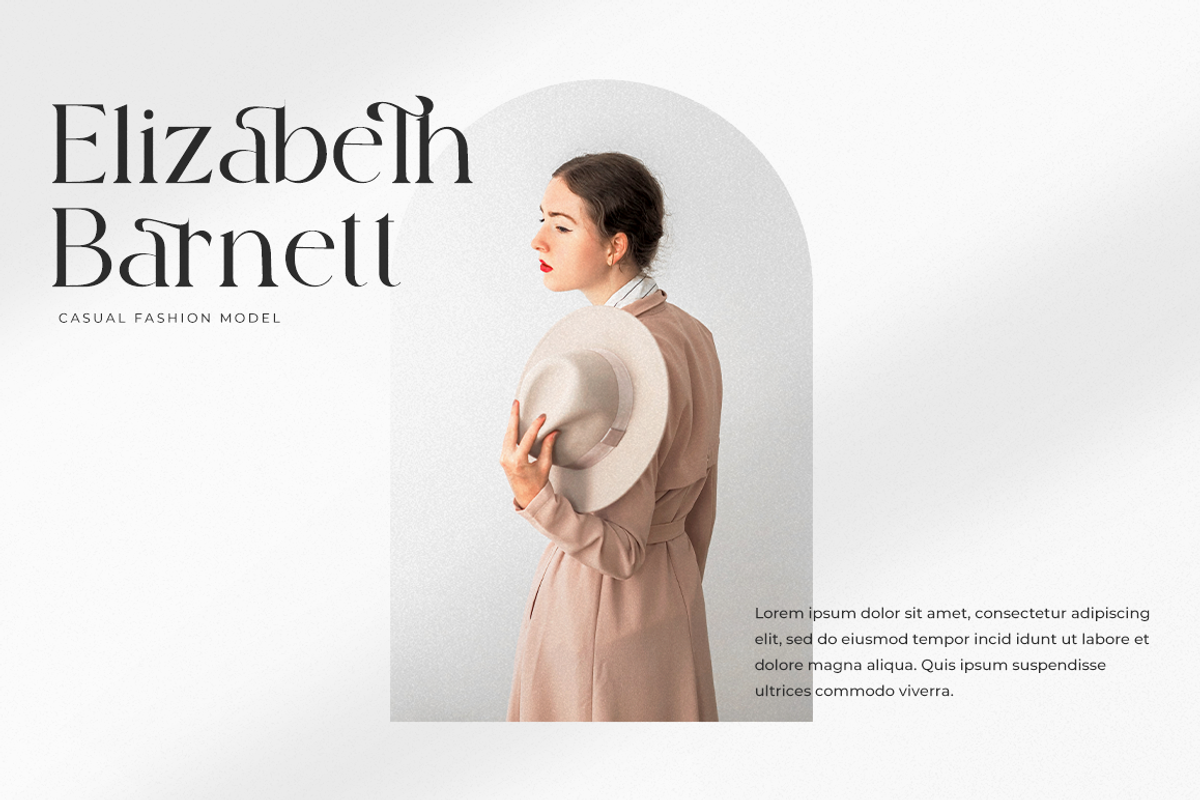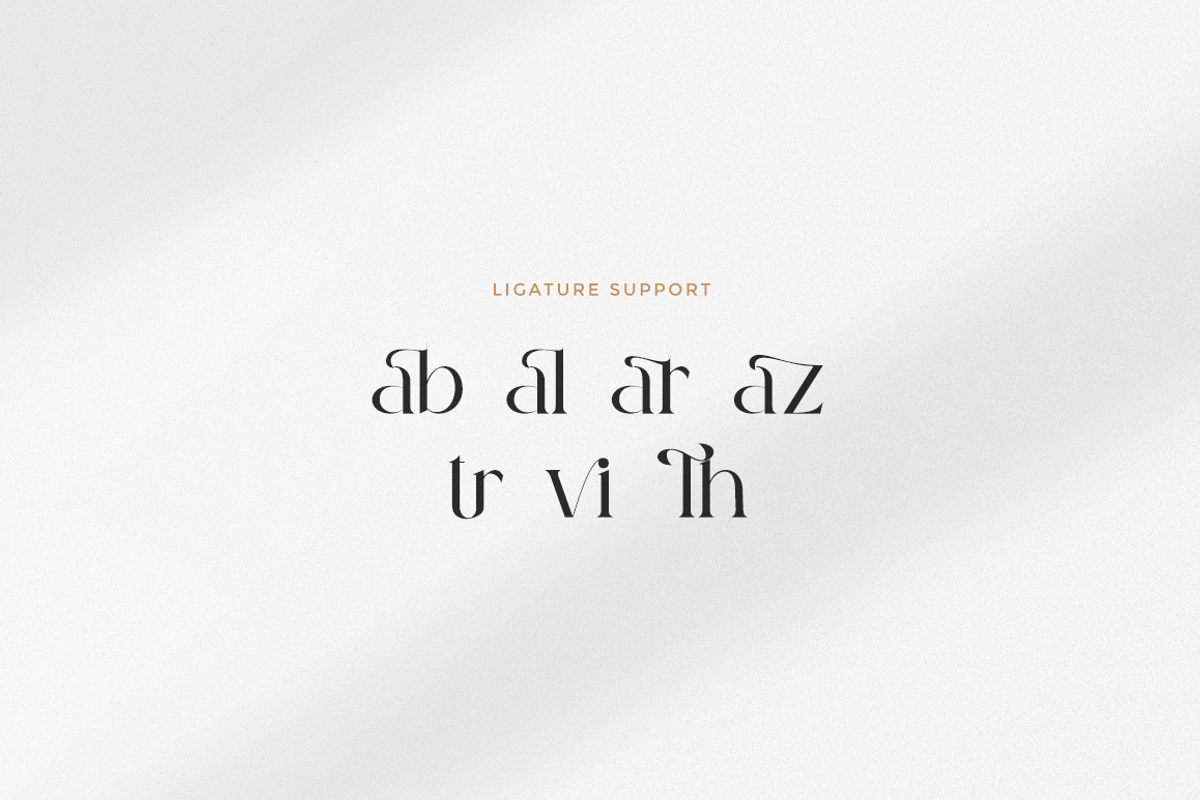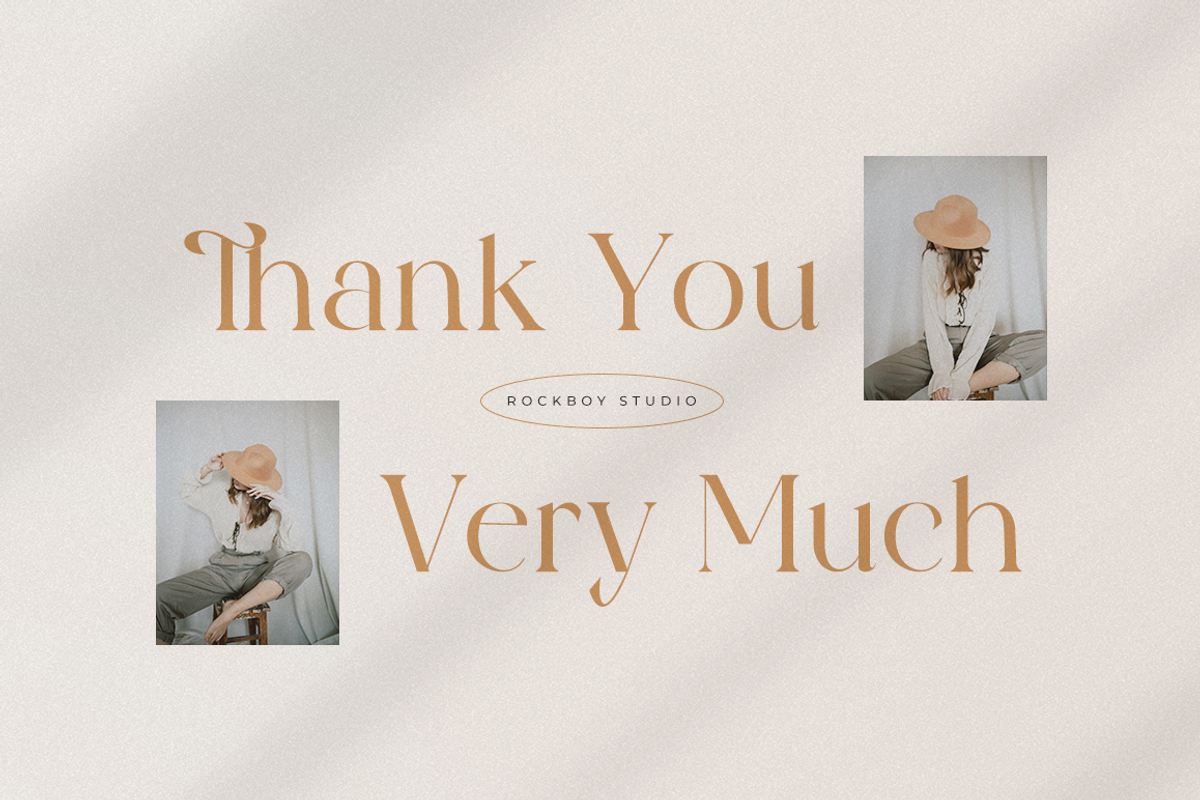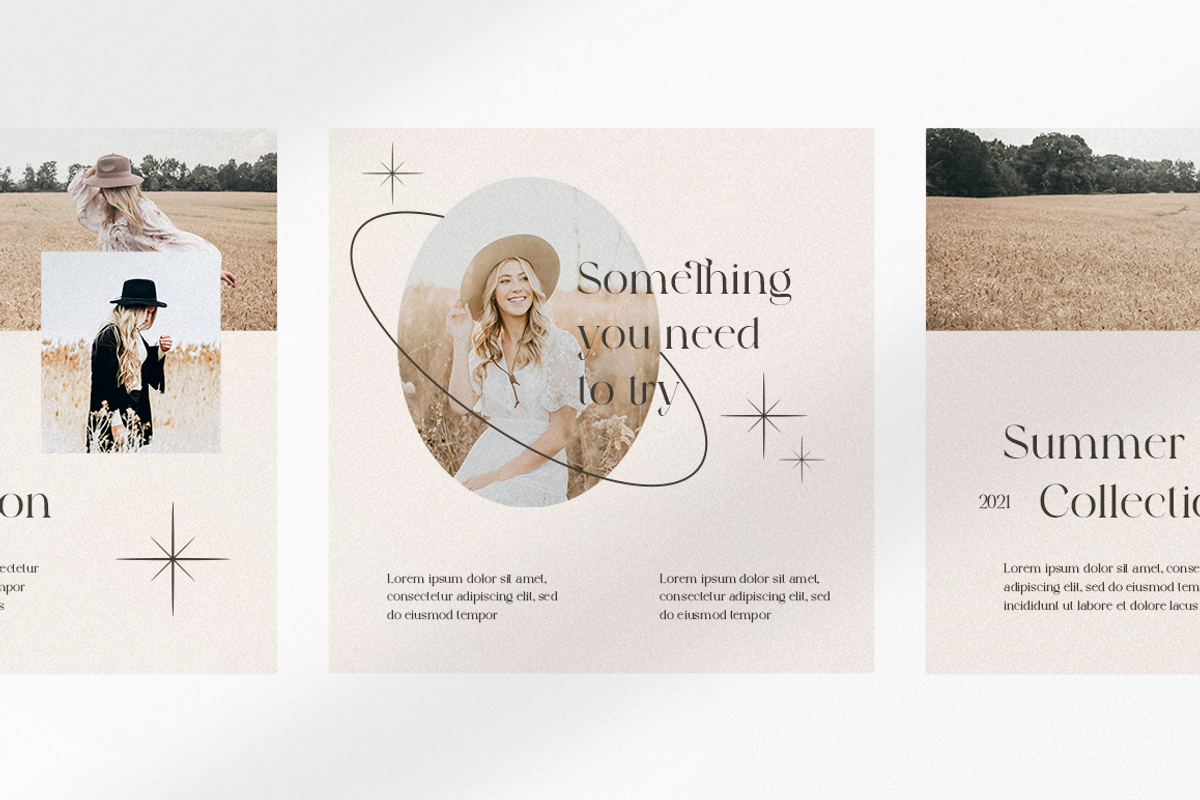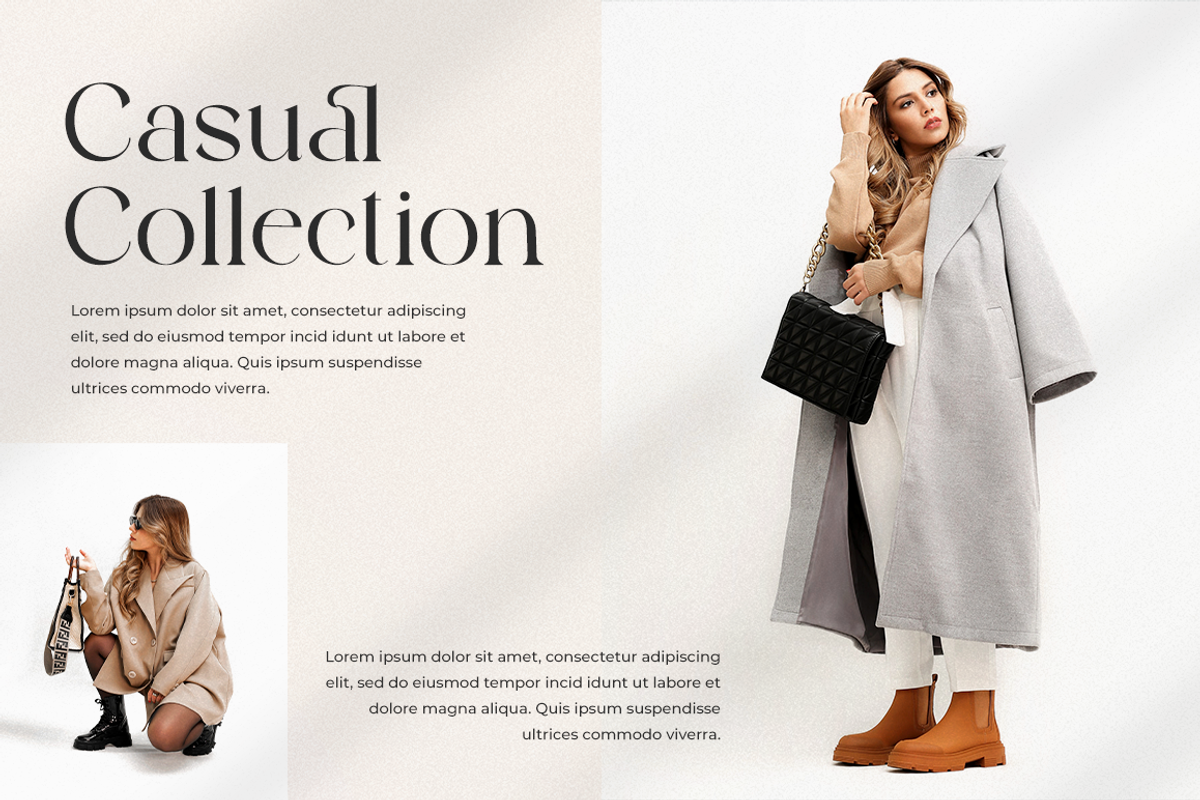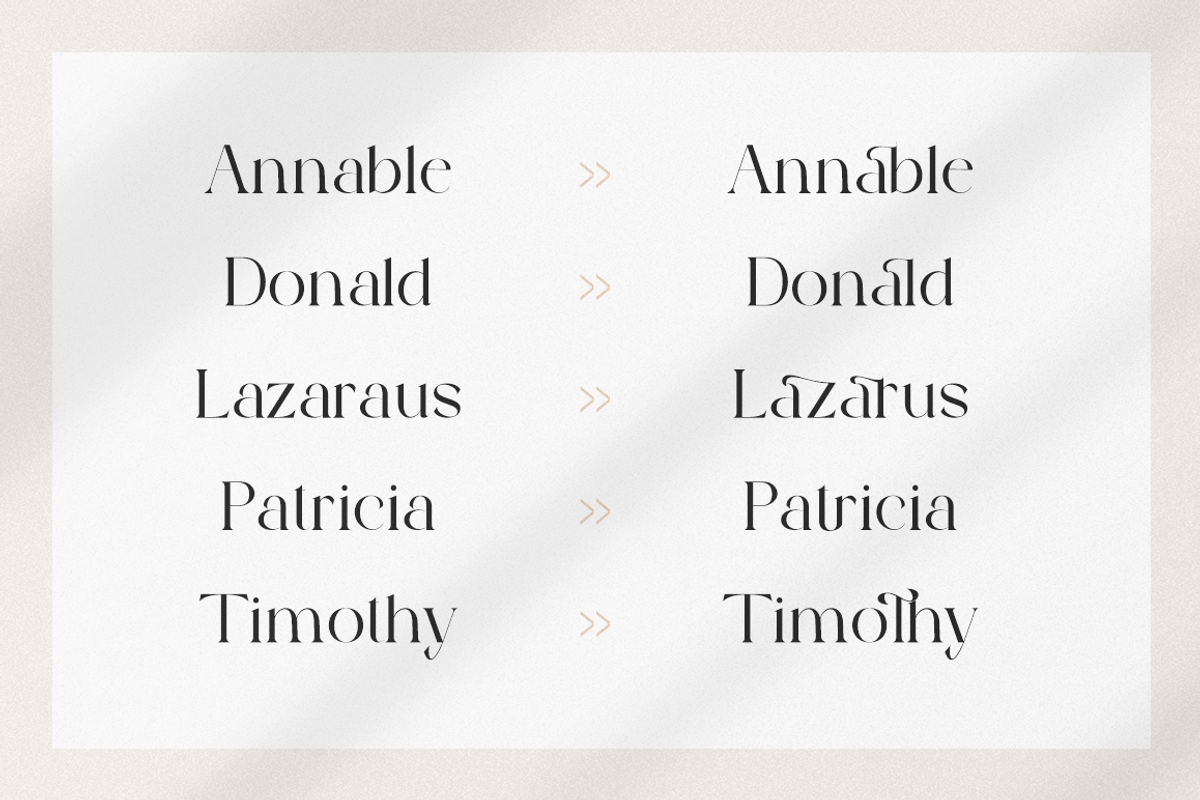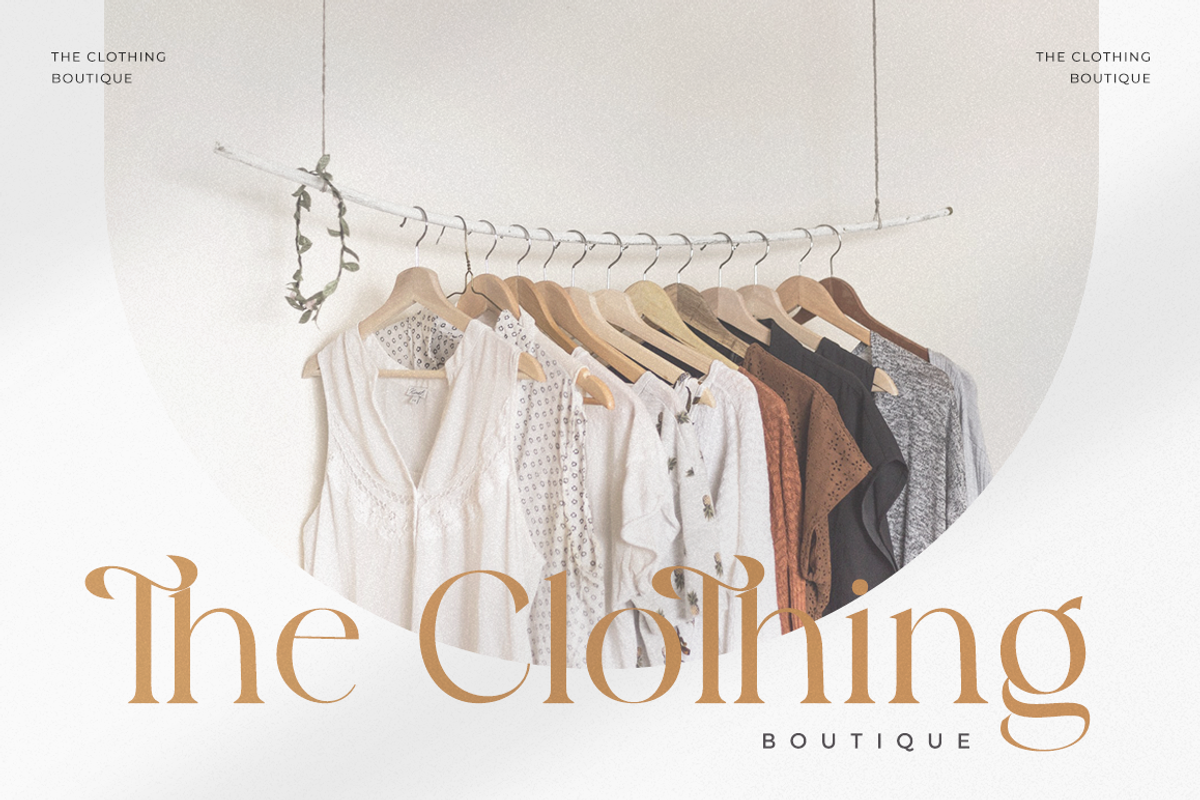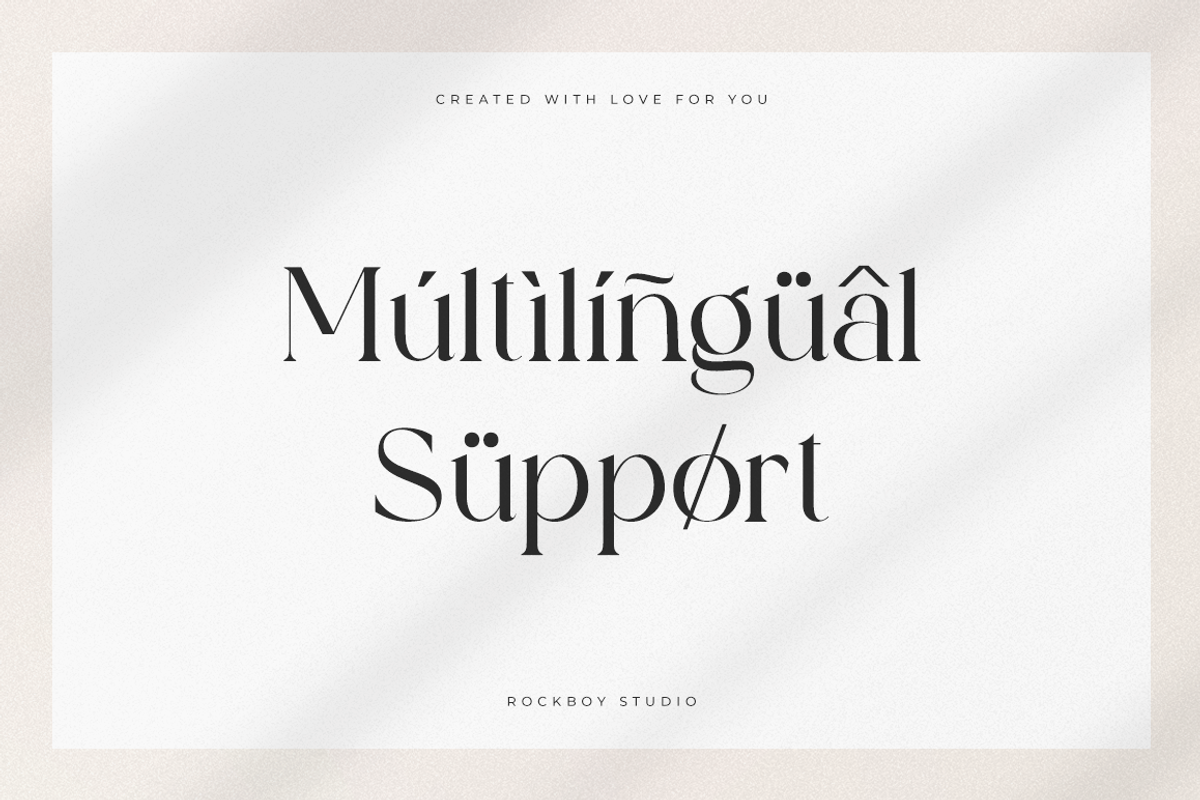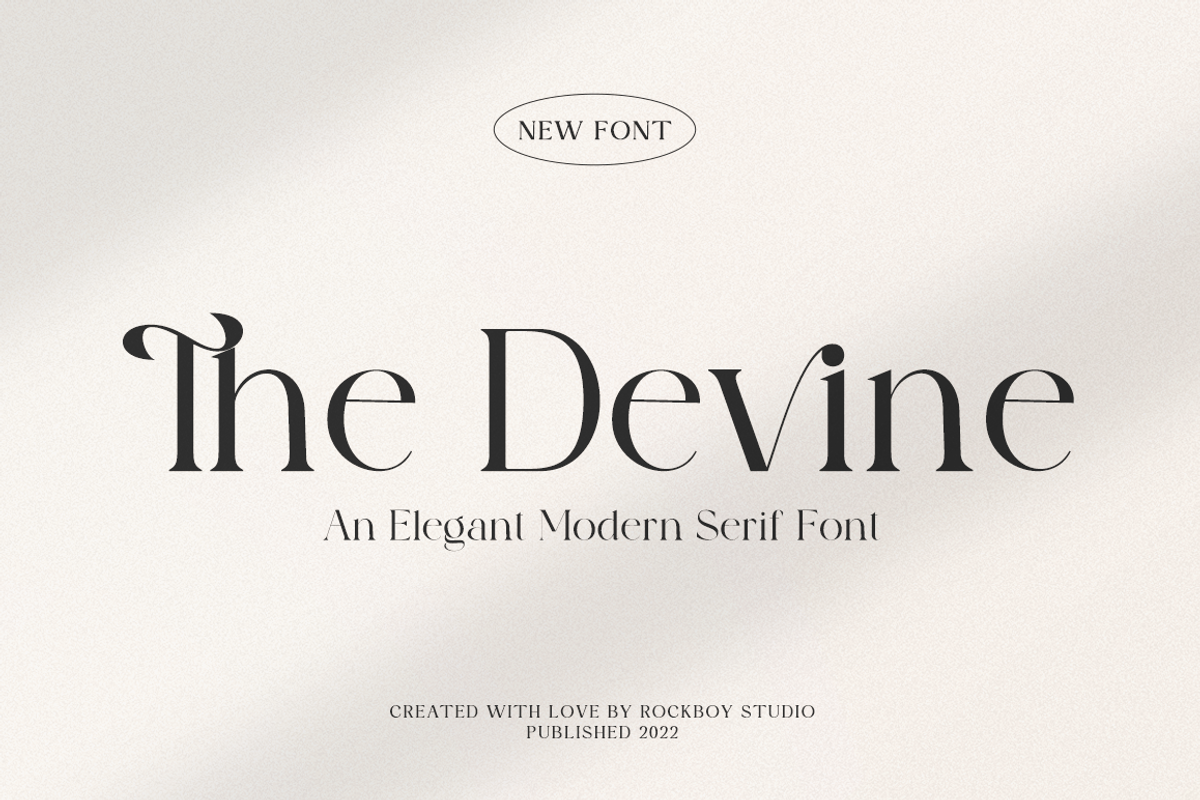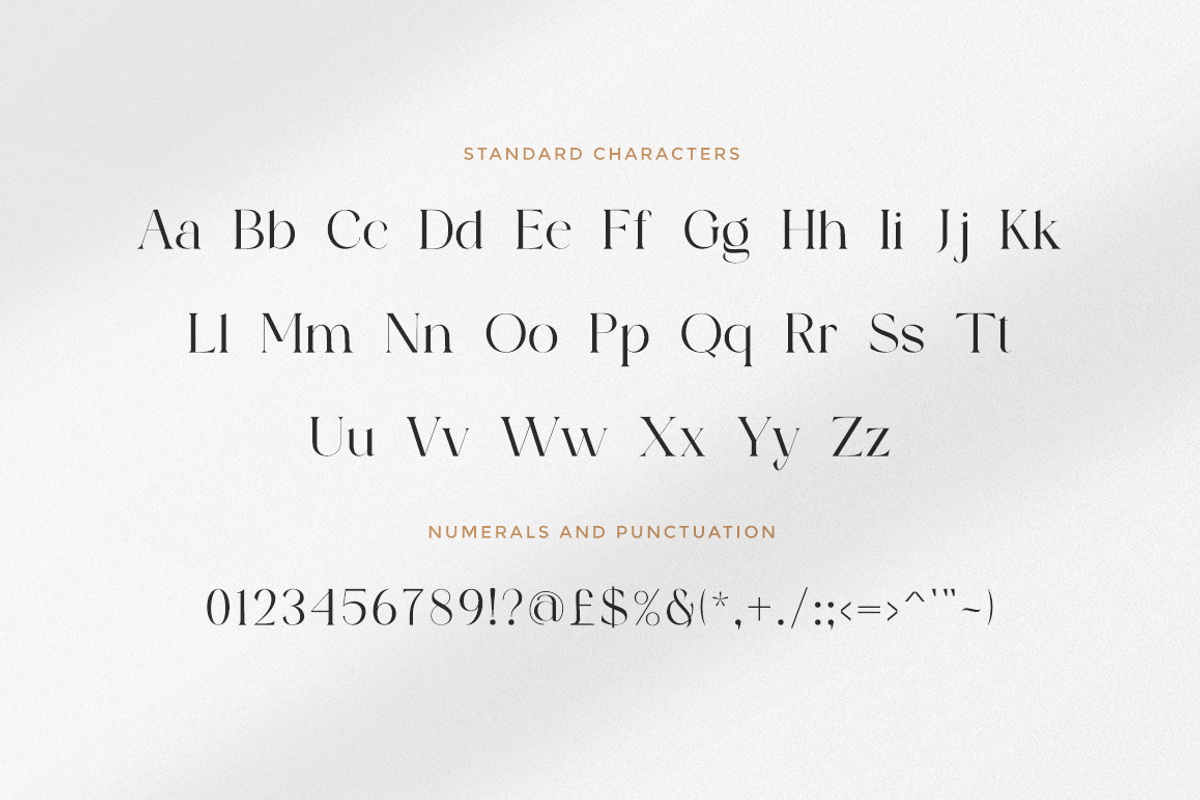
The Devine - Modern Stylish
The Devine is a distinct, elegant and authentic serif font. Masterfully designed to become a true favorite, this font has the potential to bring each of your creative ideas to the highest level!